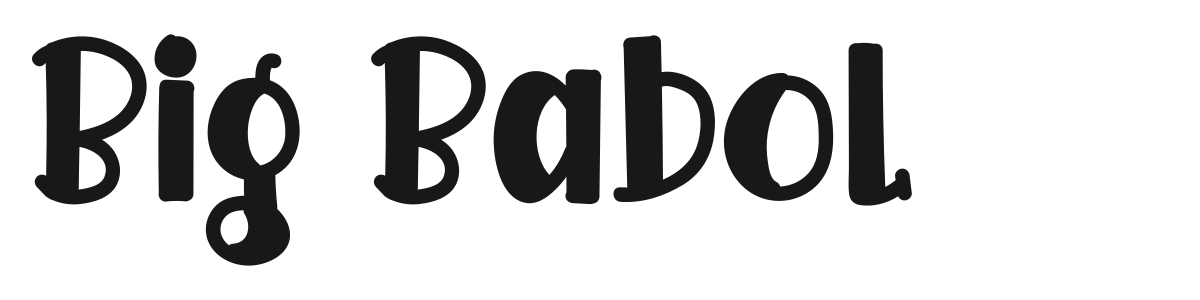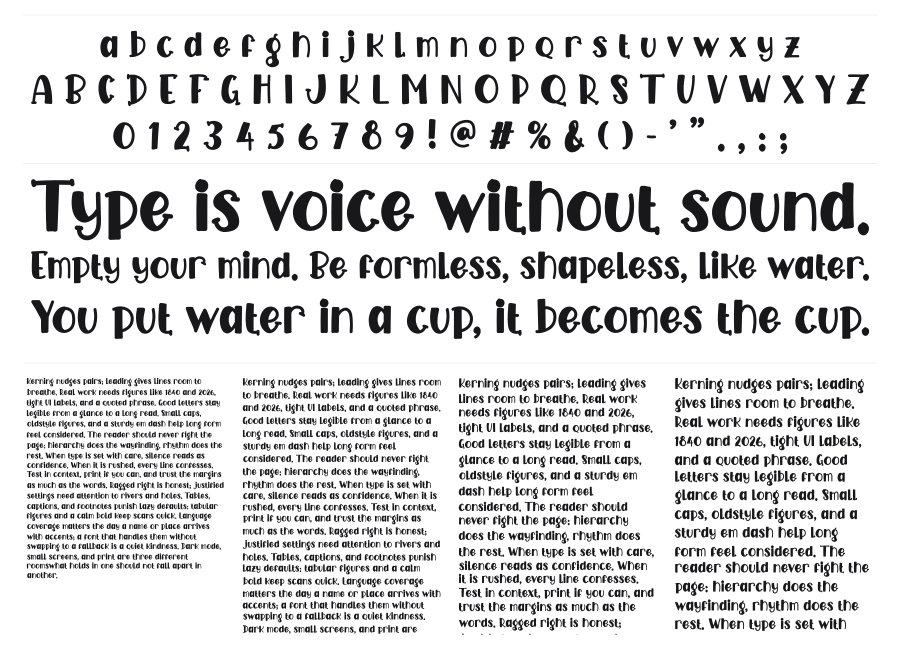
Big Babol
Big Babol is a chunky, hand-lettered display font with a spontaneous, cartoon-like energy. Letters bounce with irregular widths and playful terminal details, making every line feel loosely hand-drawn rather than mechanically constructed. A natural pick for children's brands, food packaging, or any project that needs to feel immediately approachable and fun.